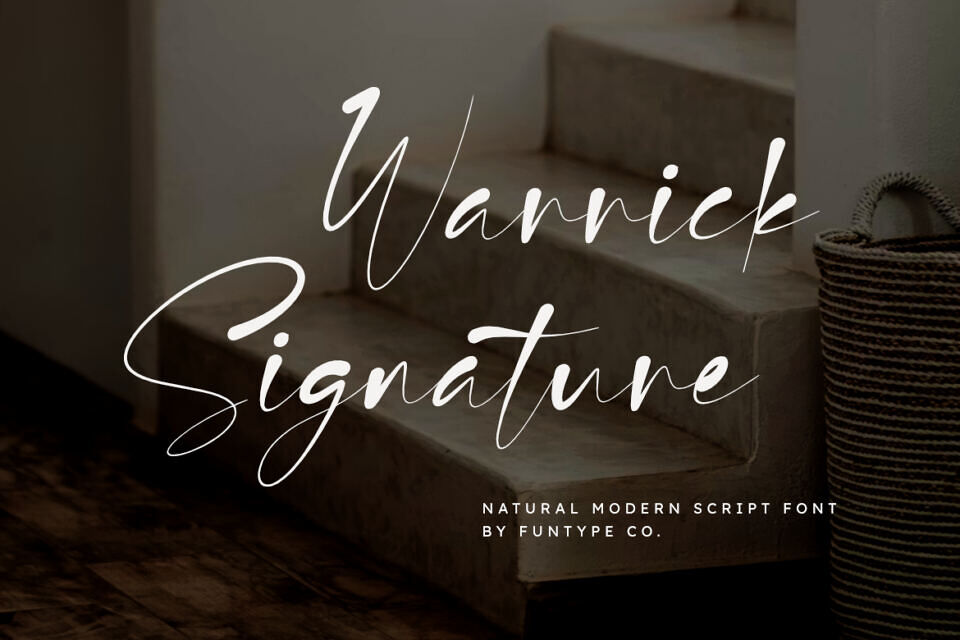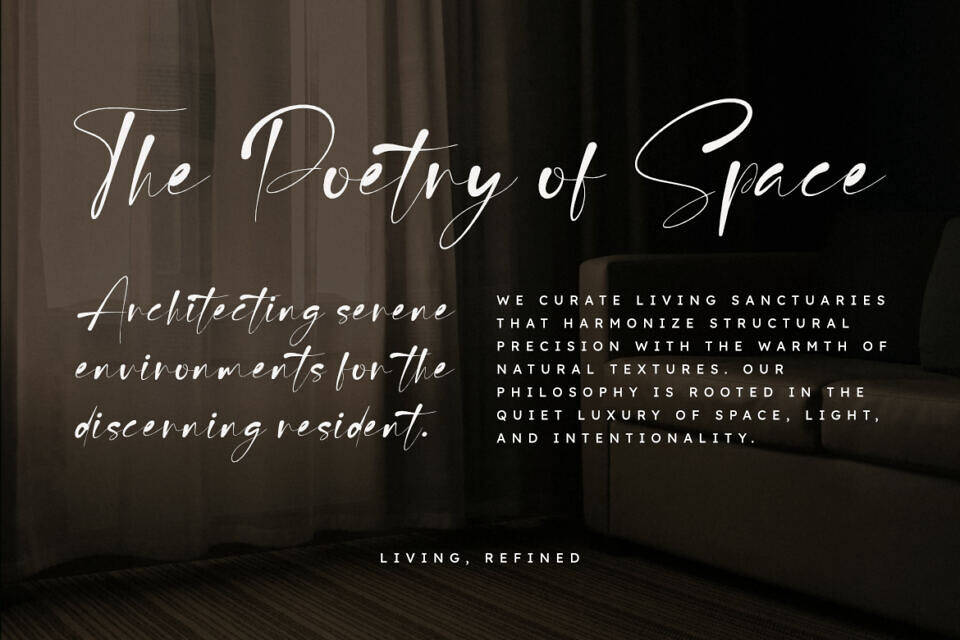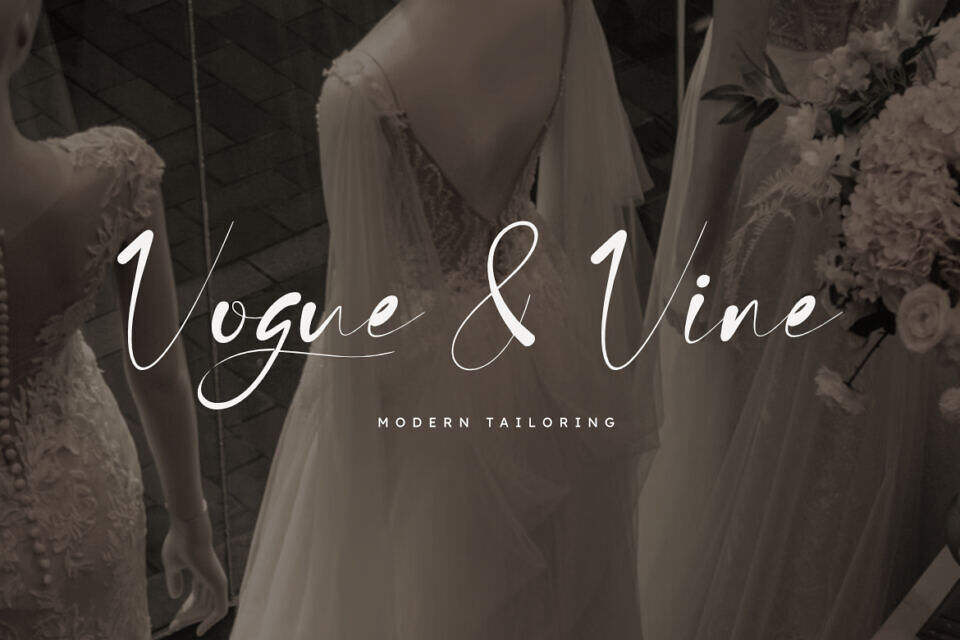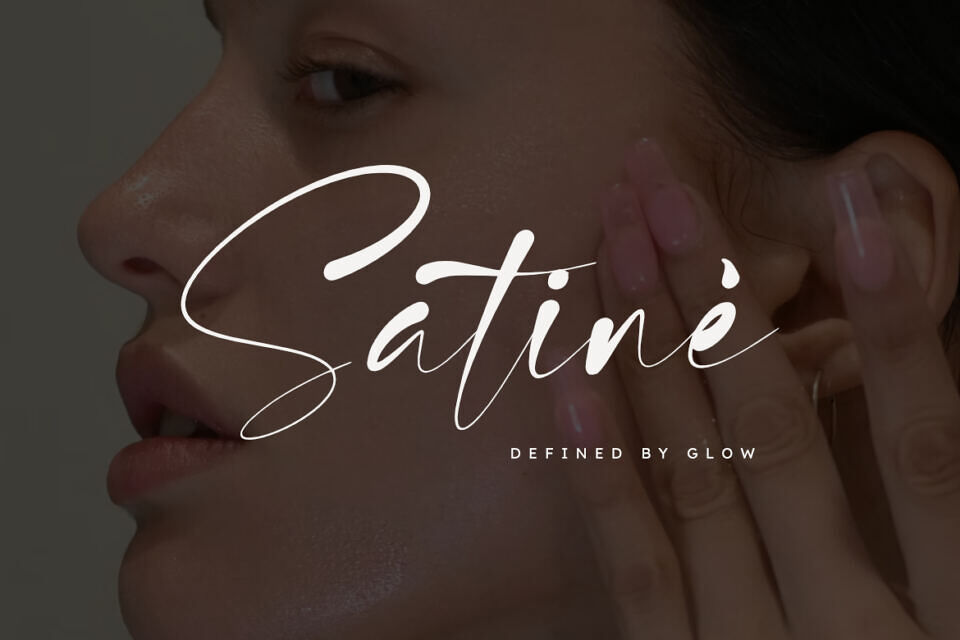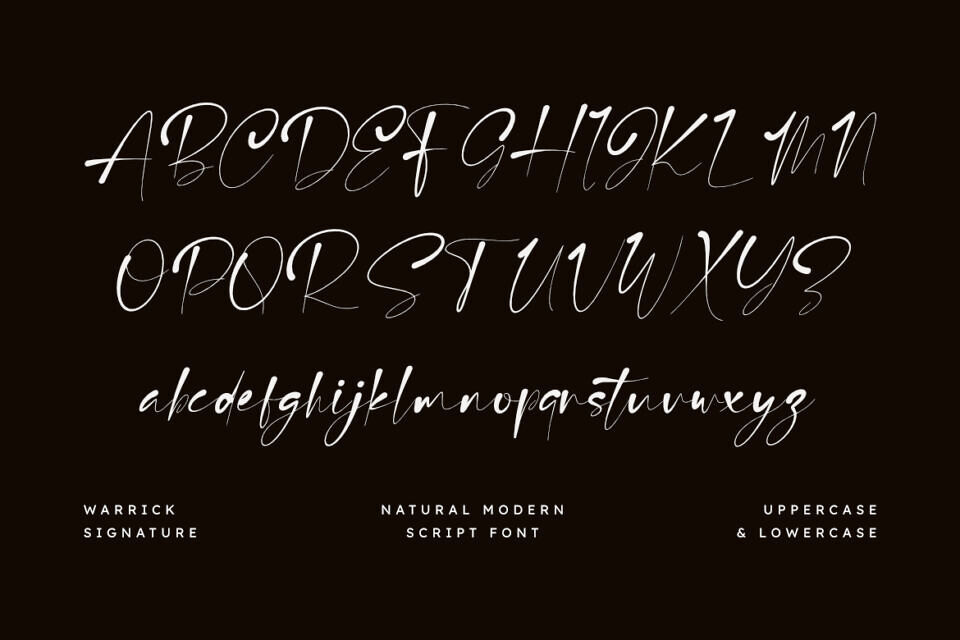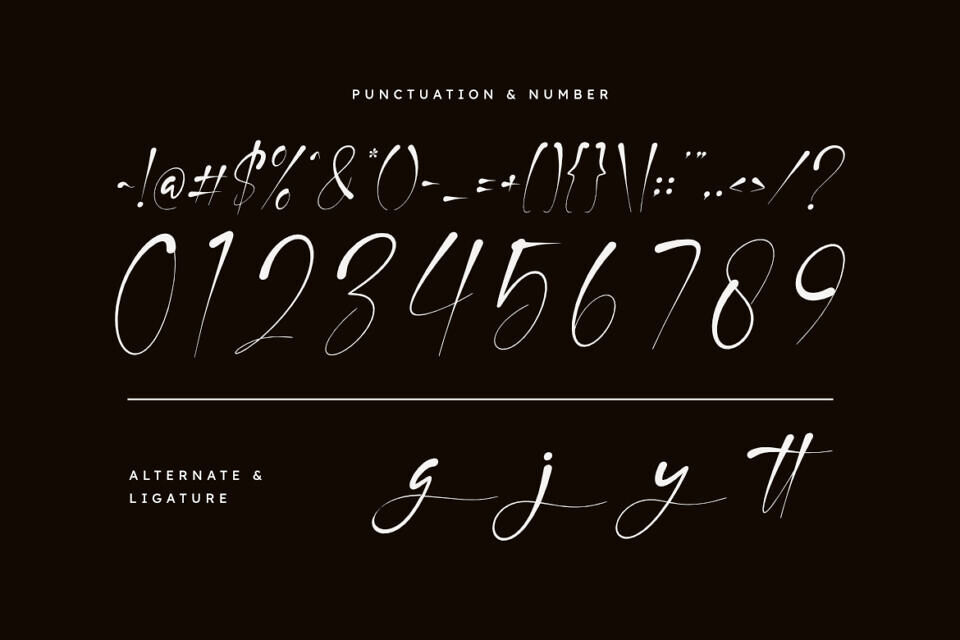
Warrick Signature is a sophisticated and natural modern script font, thoughtfully designed to capture the essence of personal charm and contemporary storytelling. With its fluid, organic strokes and clean structure, Warrick Signature offers a professional aesthetic that brings a touch of authentic authority to any creative project.
Whether you are crafting a striking photography watermark, a sleek lifestyle brand identity, or elegant wedding invitations, Warrick Signature provides a seamless blend of hand-drawn flair and modern power.